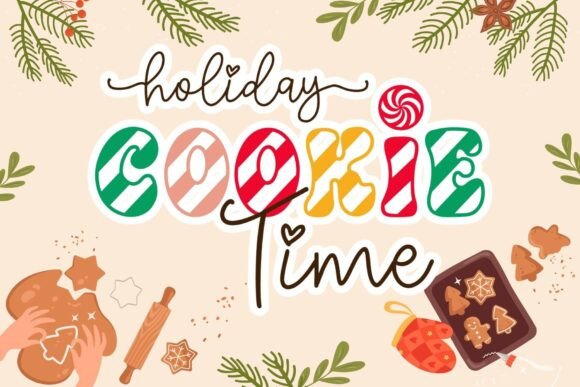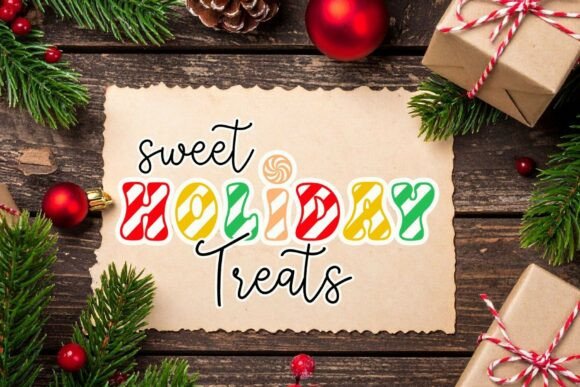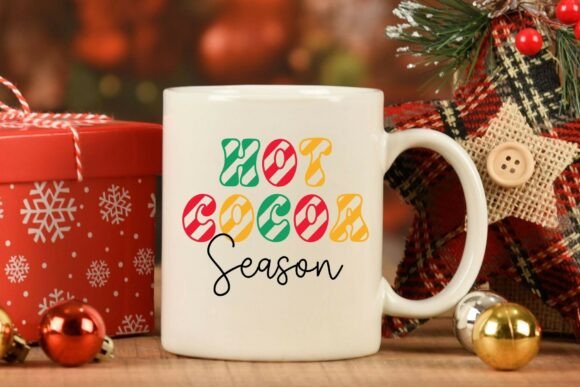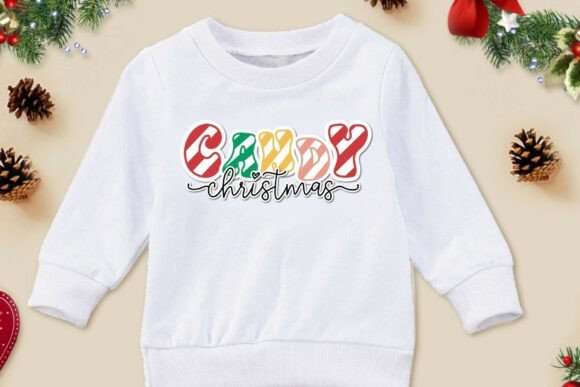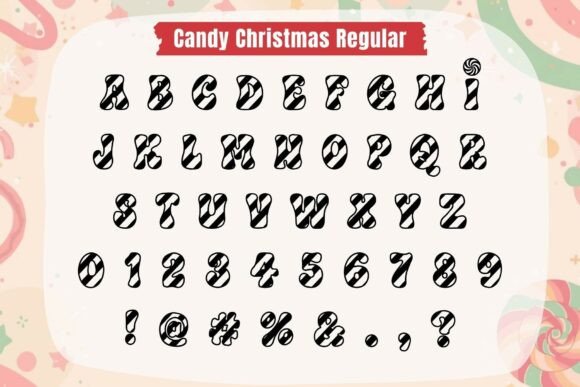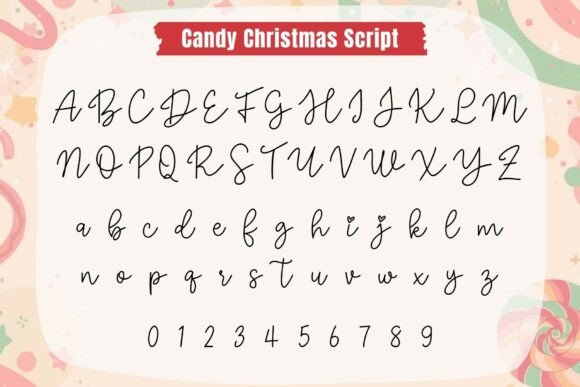
Celebrate the Magic of the Season with the Candy Christmas Duo Font
Have you ever sat down with a cup of hot cocoa and a blank piece of paper, feeling inspired to create something special for the holiday season? For many designers, this is the moment when creativity flows and ideas begin to take shape. If you’re looking for a way to infuse your designs with festive cheer, we’ve got just the thing – the Candy Christmas Duo Font.
This adorable font duo is a match made in holiday heaven, combining the playful, candy-striped letters with a handwritten script that’s sure to bring a smile to your face. Whether you’re designing Christmas cards, party invitations, or seasonal merchandise, the Candy Christmas Duo Font is the perfect addition to your design toolkit. With its bright colors, smooth curves, and candy-inspired texture, this font is sure to add a touch of whimsy and sweetness to every project.
Candy Christmas Duo Font Key Features
- Unique Characteristics: The Candy Christmas Duo Font features a playful, cursive design with festive elements, making it ideal for Christmas and holiday-themed projects.
Candy Christmas Duo Font Review
Overall, I think the Candy Christmas Duo Font is a delightful addition to any holiday-themed design project. ✨ It’s playful, colorful, and screams ‘festive’ – which is perfect for Christmas or other winter celebrations.
Here are some of the things that I think work well in this font:
- Fun, cursive script with decorative flourishes ✨
- Two different font styles: a bold, chunky font and a more delicate, cursive font ✨
- Perfect for use in headers, titles, and other prominent text elements ✨
- Works well in digital and print designs ✨
However, there are a few limitations that I think are worth mentioning:
- The font may be too playful for more formal designs ⚠️
- The two font styles may not be as versatile as some other font combinations ⚠️
- The font may be too ‘in-your-face’ for some designs, so be sure to use it sparingly ⚠️
Overall, I think the Candy Christmas Duo Font is a great choice for anyone looking to add a little extra festive cheer to their designs. Just be sure to use it thoughtfully and in the right context.
Candy Christmas Duo Font: A Practical Application Guide
Tips: Experiment with different font sizes and colors to create a visually appealing design. Use the Candy Christmas Duo Font in conjunction with other festive elements, such as holly and snowflakes, to create a cohesive look.
Tips: Use the Candy Christmas Duo Font in conjunction with other festive graphics, such as candy canes and gingerbread men, to create a whimsical design.
Tips: Use the Candy Christmas Duo Font in conjunction with other festive elements, such as snowflakes and holly, to create a cohesive design.
The Candy Christmas Duo Font is perfect for creating festive holiday designs, such as:
Invitations and party decorations
Holiday cards and gift tags
Festive social media